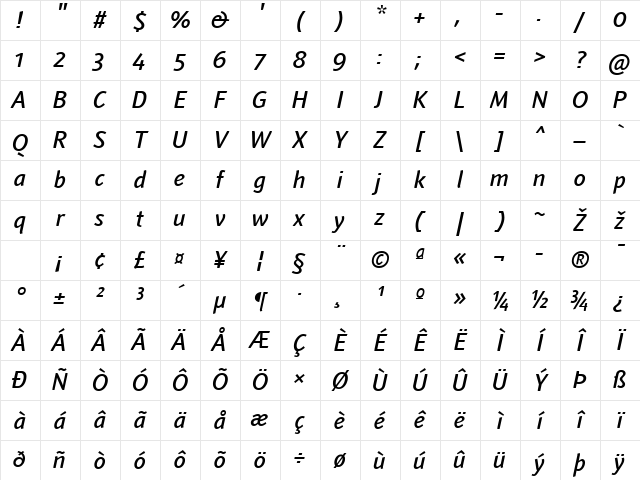
Textra LT Light Bold Italic
Foundry: Linotype Library GmbH
Designer: Jochen Schuss
Design Context for Textra LT Light
Textra LT Light is a composed and adaptable typeface that performs quietly and consistently across a wide range of design contexts. The slanted form adds forward momentum and visual energy. Its bold stroke weight gives it real presence on the page.
Pro Tip: Use Textra LT Light for emphasis, pull quotes, and subheadings where its slanted energy can add rhythm to the layout.